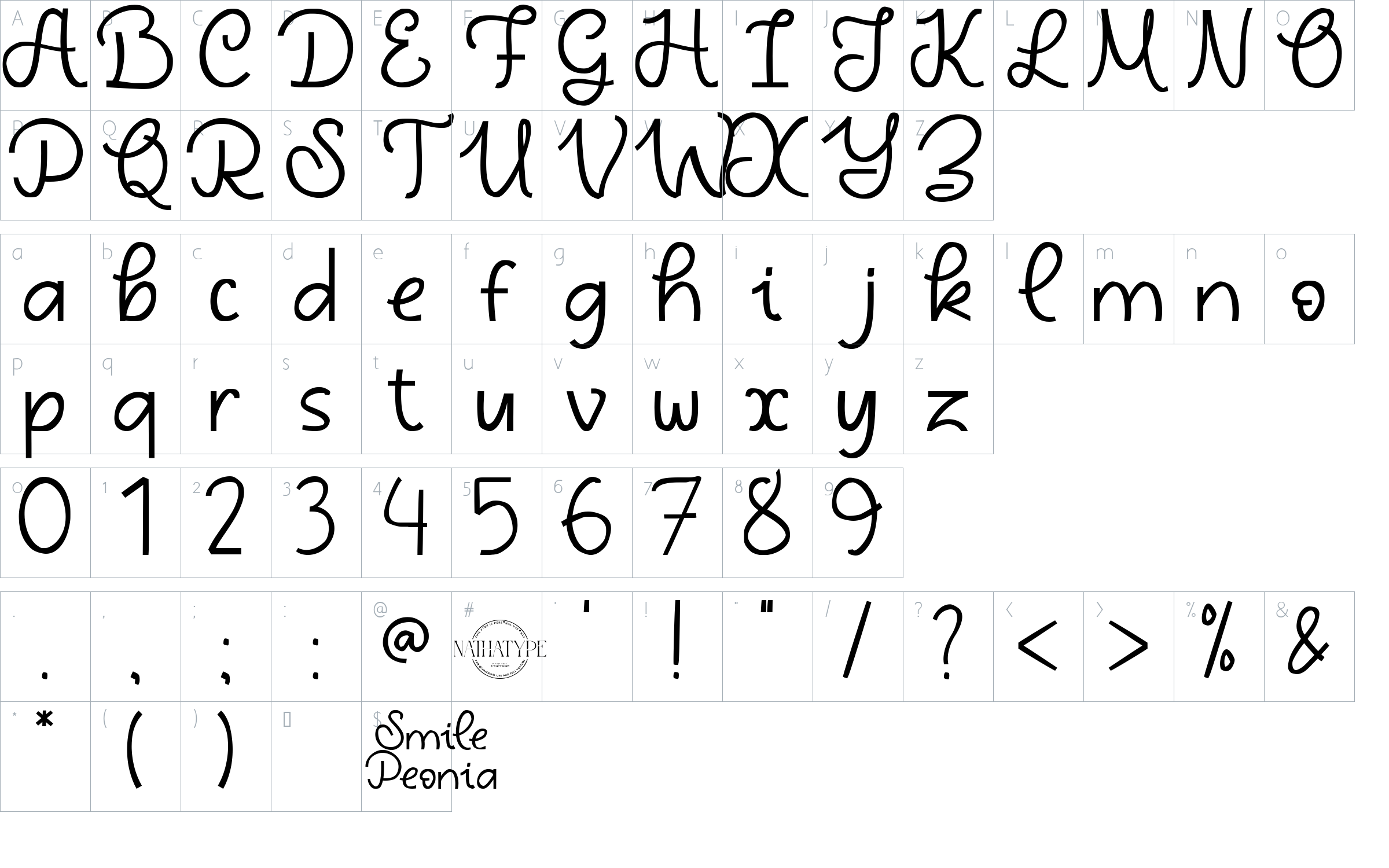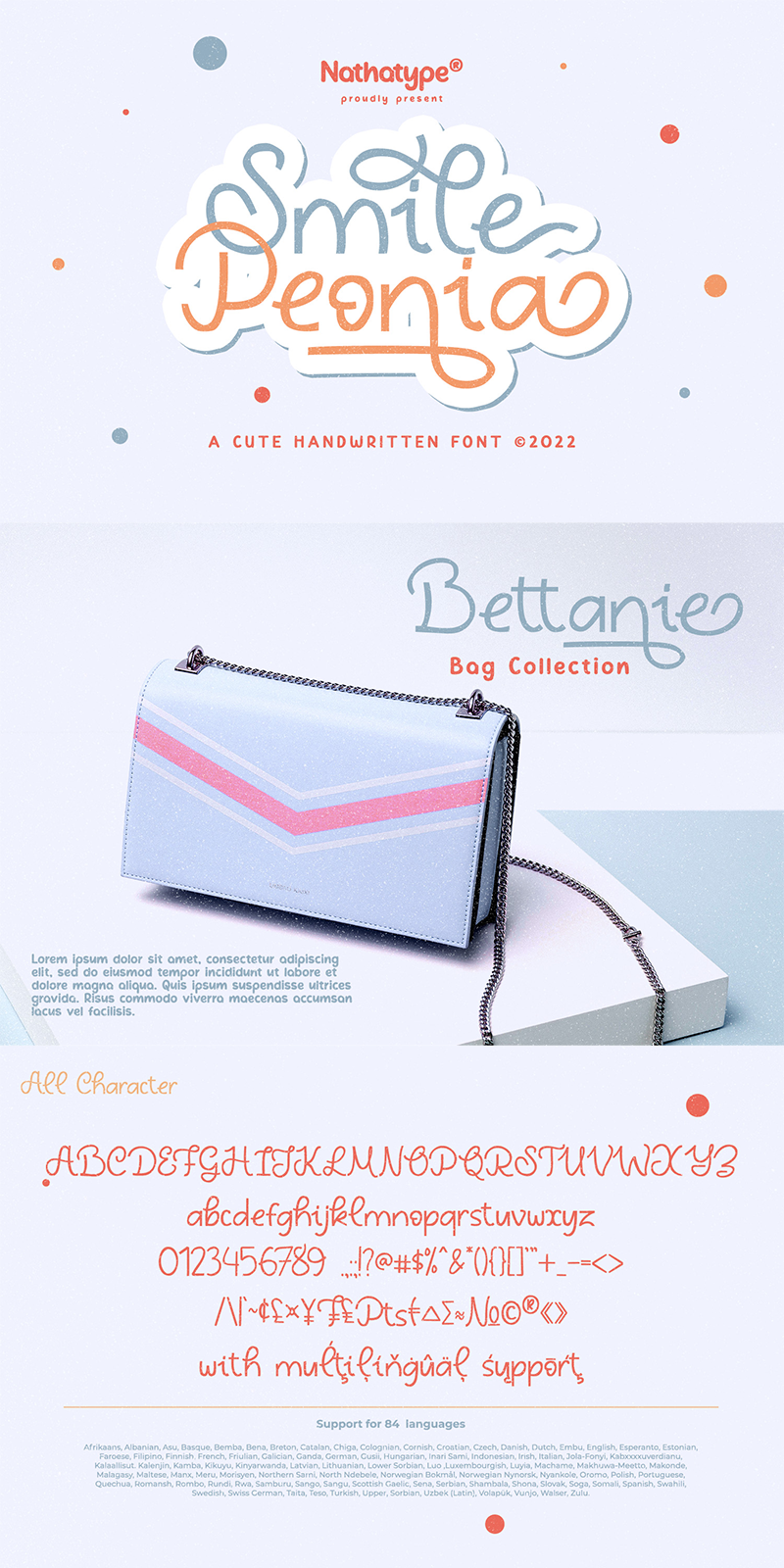
Smile Peonia Font
Designed by Natha Type
About Smile Peonia
Smile Peonia is a delightful script font that radiates charm and warmth. The characters in Smile Peonia are imbued with cute and whimsical charm, making each letter feel like a little work of art. With rounded shapes and gentle curves, the font’s design adds a touch of softness and friendliness to your text.
• Stylistic Sets
• Swashes